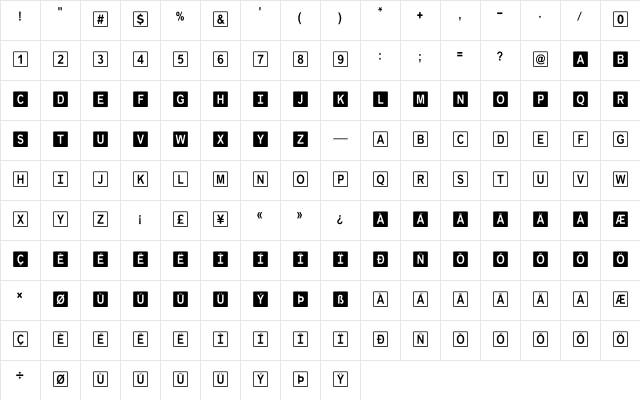
KAZYcase scrabble
Style: scrabble
Designer: KAZY
Design Context for KAZYcase scrabble
KAZYcase scrabble is a composed and adaptable typeface that performs quietly and consistently across a wide range of design contexts.